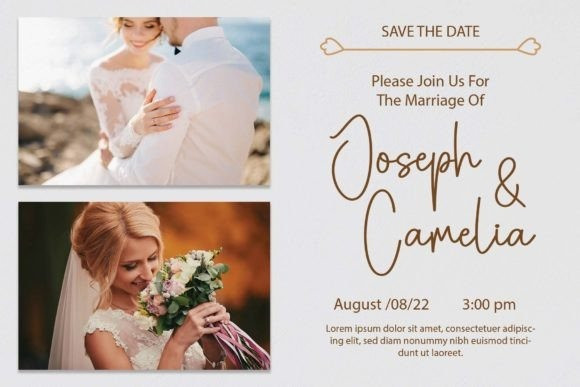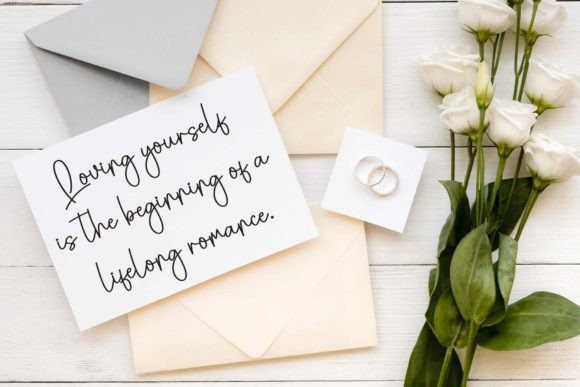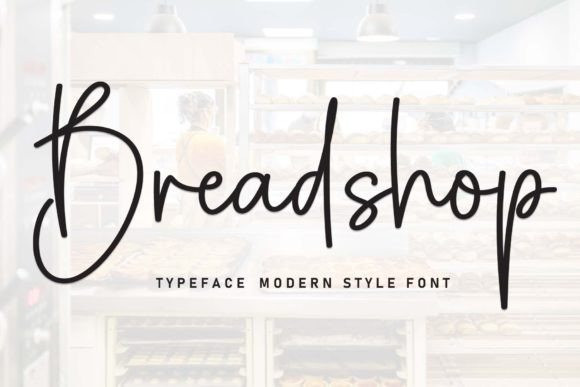
Breadshop Script Font
Breadshop Script Font is a sweet and friendly handwritten font. Its natural and unique style makes it incredibly fitting to a large pool of designs. The only limit is your imagination!